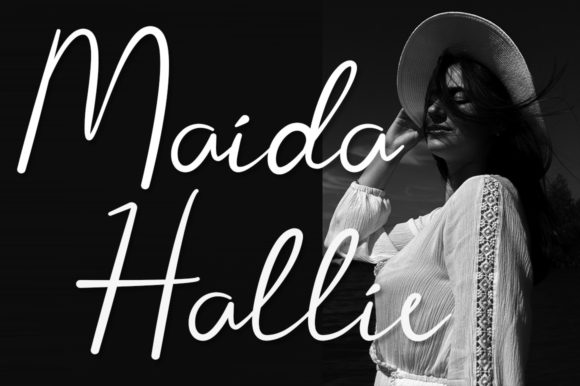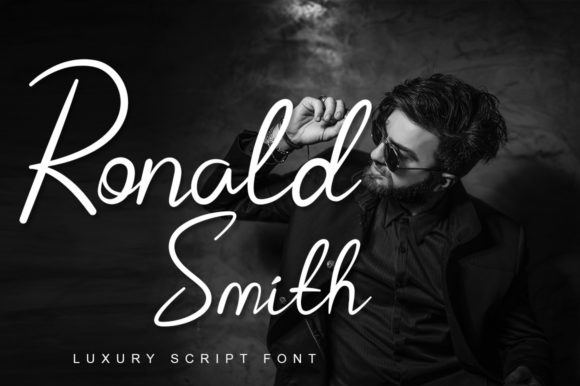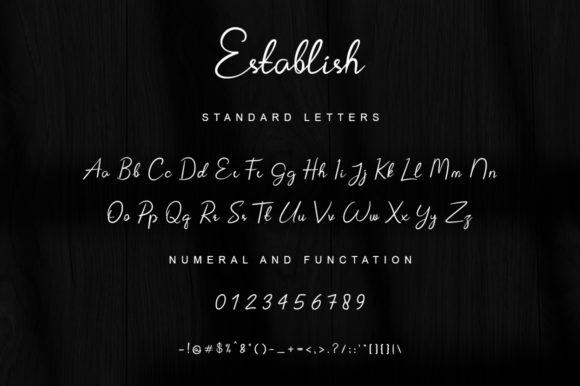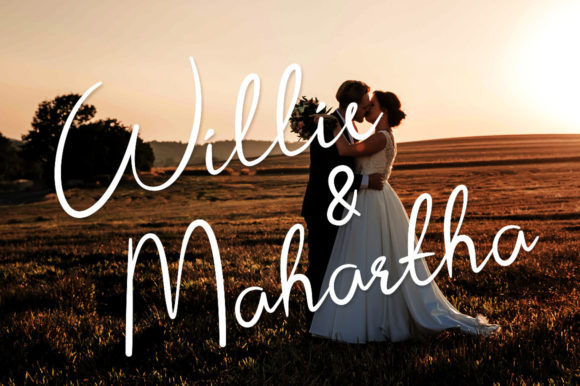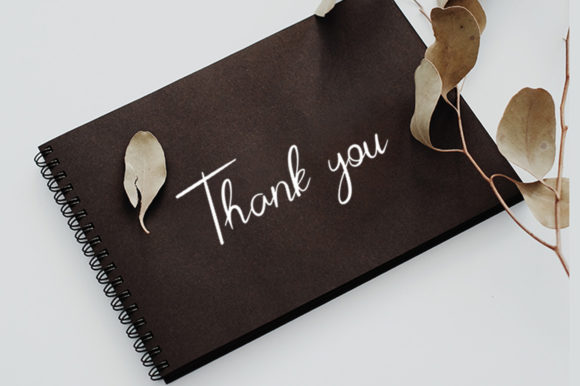
Introducing Establish: The Ultimate Elegant Script Font for Designers
Are you tired of using the same old fonts for your designs? Look no further! Establish is a stylish and incredibly elegant script font that is perfect for branding, advertising, headlines, and more. With its versatile style, you can create spectacular designs that will leave a lasting impression on your audience.
What Makes Establish Stand Out?
Establish is not just another script font. Its unique and elegant style sets it apart from other fonts, making it perfect for designers who want to add a touch of sophistication to their work. Here are some features that make Establish a must-have font:
- Versatile Style: Establish has a versatile style that can be used for a wide range of design projects, from branding and advertising to headlines and packaging.
- Elegant and Refined: The font’s elegant and refined style makes it perfect for creating sophisticated designs that exude luxury and high-end quality.
- Highly Legible: Despite its elegant style, Establish is highly legible, making it perfect for use in body text as well as headlines.
Use Establish for Branding and Advertising
Establish is perfect for branding and advertising projects where you want to make a lasting impression on your audience. Here are some ways you can use Establish for branding and advertising:
- Logos: Use Establish to create a stunning logo that reflects your brand’s personality and values.
- Headlines: Use Establish to create eye-catching headlines that grab attention and draw your audience in.
- Taglines: Use Establish to create a memorable tagline that complements your brand’s logo and messaging.
Tips for Using Establish in Your Designs
Here are some tips for using Establish in your designs:
- Experiment with Font Sizes: Establish looks great in a variety of font sizes, from large headlines to smaller body text.
- Play with Ligatures: Establish features beautiful ligatures that can add an extra touch of elegance to your designs.
- Pair it with Other Fonts: Establish pairs well with other fonts, making it easy to create a cohesive look for your designs.
Why Designers and Crafters Love Establish
Establish has quickly become a favorite among designers and crafters, and for good reason. Here are some reasons why:
- Unique Style: Establish’s unique style sets it apart from other fonts, making it perfect for designers who want to stand out from the crowd.
- Ease of Use: Establish is easy to use and works seamlessly with design software like Adobe Creative Suite.
- High-Quality Design: Establish is designed to high standards, ensuring that your designs look professional and polished.
In conclusion, Establish is a stylish and incredibly elegant script font that is perfect for designers and crafters who want to add a touch of sophistication to their work. With its versatile style, elegant design, and high legibility, Establish is the perfect font for branding, advertising, headlines, and more. So why wait? Fall in love with Establish and use it to create spectacular designs that will leave a lasting impression on your audience.